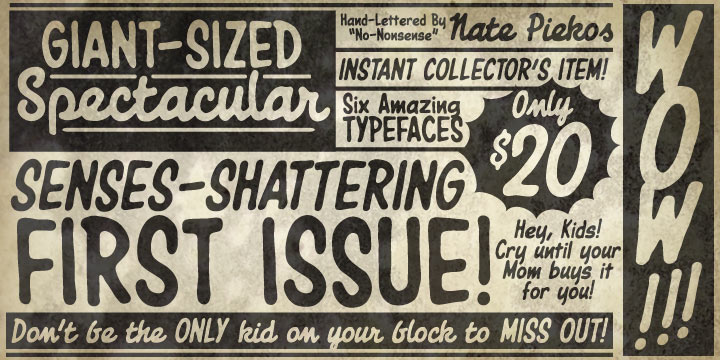
Giant Sized Spectacular BB Font is ideal for various design applications including comic book covers, superhero movie posters, gaming interfaces, action-packed advertisements, children's entertainment branding, vintage arcade graphics, pop art designs, and dynamic promotional materials that require bold, attention-grabbing visual impact.
What makes Giant Sized Spectacular BB Font truly exciting is its explosive energy and larger-than-life personality that instantly commands attention and creates memorable visual experiences. This extraordinary typeface captures the essence of classic comic book lettering with its bold, dramatic proportions and dynamic character structure. The font's powerful presence evokes the golden age of superhero comics while incorporating modern design refinements that ensure versatility across contemporary applications. Its theatrical nature makes it perfect for brands that need to communicate excitement, adventure, and larger-than-life experiences that capture audience imagination.
The Giant Sized Spectacular BB Font family includes multiple weights and stylistic variations designed to maximize visual impact. The collection features Regular, Bold, Extra Bold, and Black weights, each maintaining the font's characteristic comic book aesthetic while offering different levels of dramatic emphasis. The family also includes decorative elements, speech bubble compatibility features, and alternate characters that enhance the superhero comic atmosphere. Additional features include contextual alternates and stylistic sets that create dynamic text arrangements perfect for action-oriented designs.
Professional designers consistently select Giant Sized Spectacular BB Font Free Download for projects requiring maximum visual impact and entertainment value. The font's bold character makes it particularly effective for headlines, logos, and display applications where immediate recognition and excitement are essential. Its excellent legibility even at large sizes ensures effective communication across various media, from movie posters to digital game interfaces.
The advanced OpenType capabilities of Giant Sized Spectacular BB Font include contextual alternates, stylistic sets, and comprehensive character support that accommodates international markets while maintaining the authentic comic book appearance. The technical specifications ensure consistent performance across different platforms and applications.
For creative professionals seeking a typeface that embodies pure excitement and comic book heroism, Giant Sized Spectacular BB Font delivers unmatched dramatic impact and entertainment value. Its ability to convey adventure while maintaining professional functionality makes it invaluable for entertainment brands, gaming companies, and marketing campaigns targeting audiences who crave excitement and larger-than-life experiences. The font's spectacular presence ensures unforgettable brand recognition across all applications.